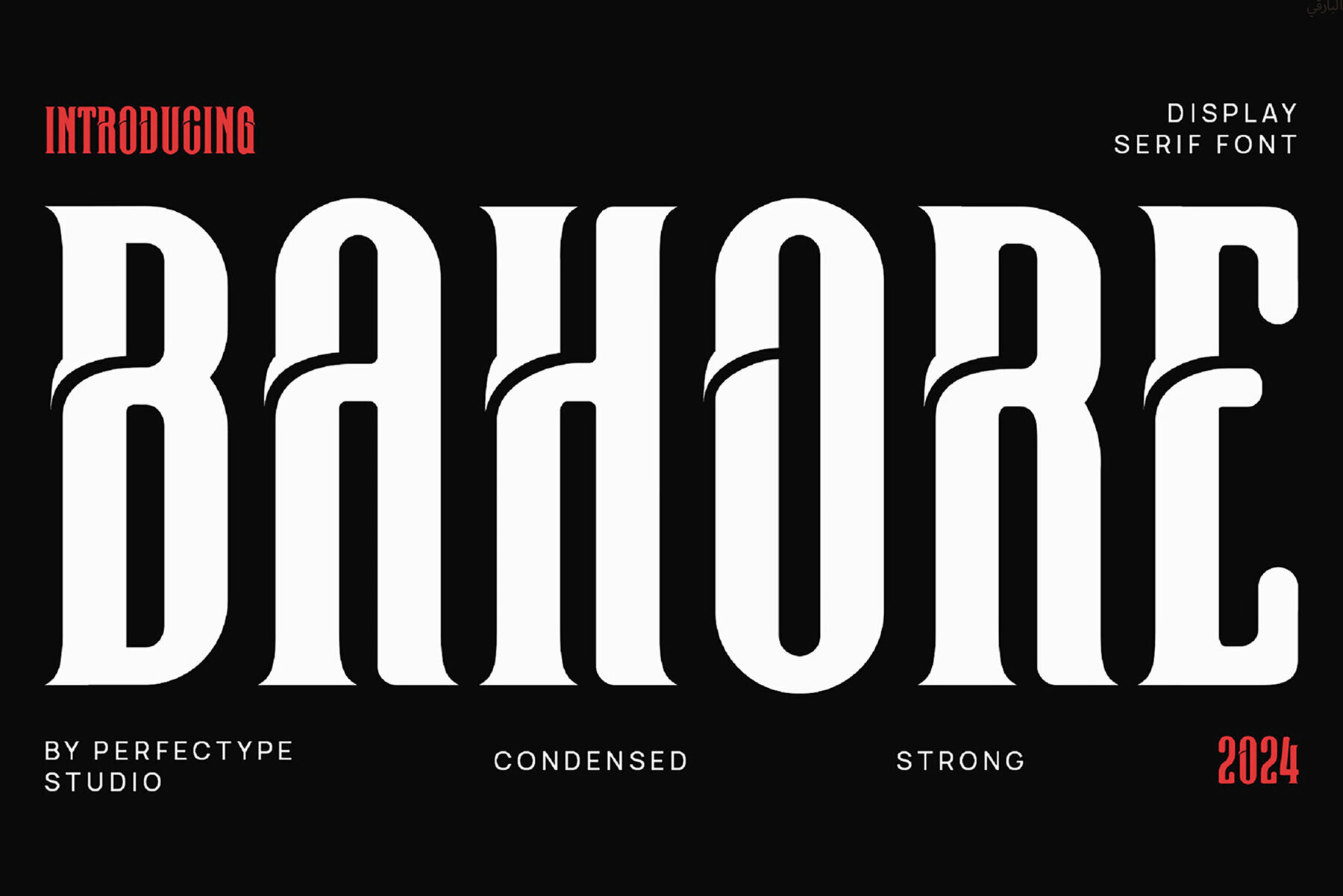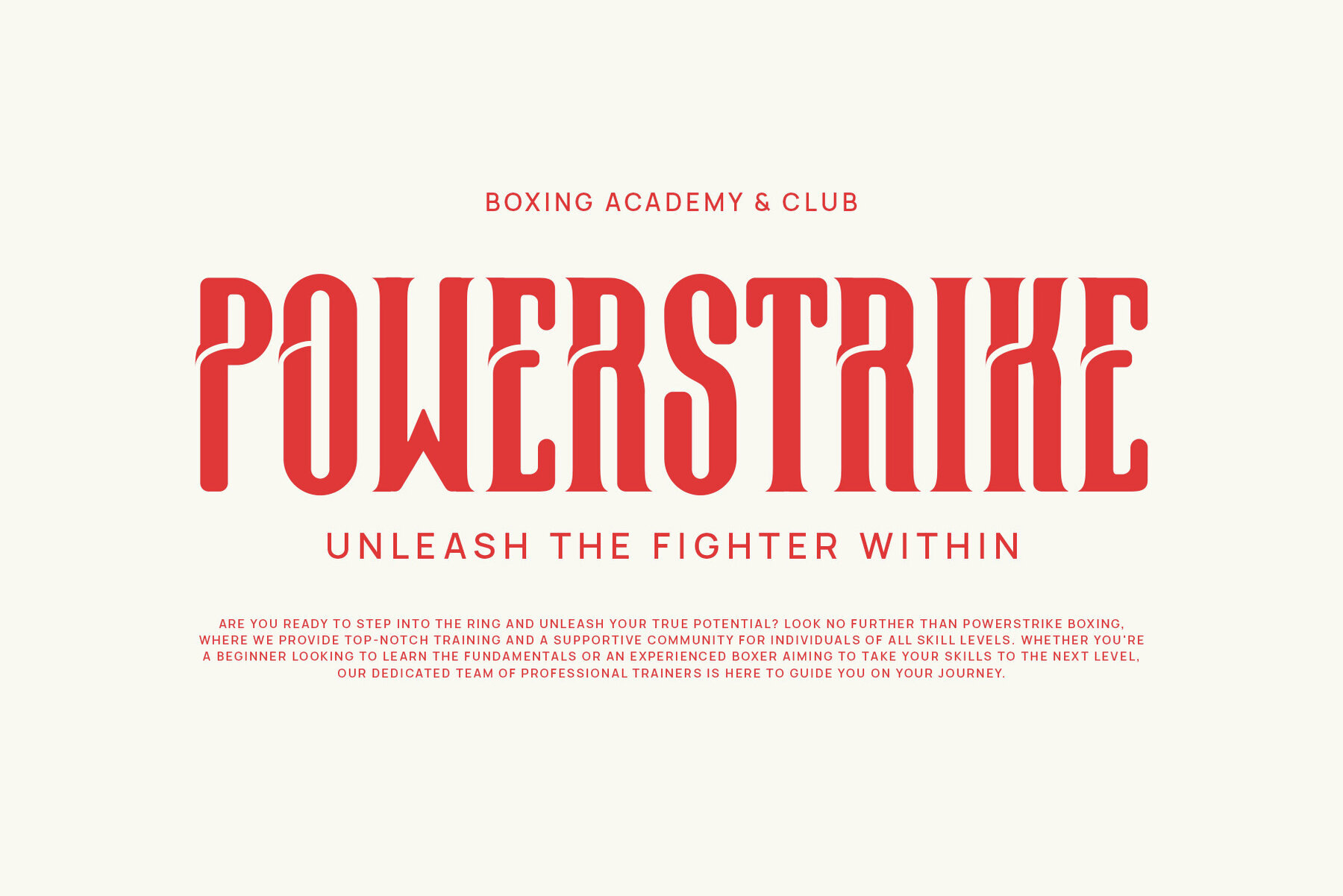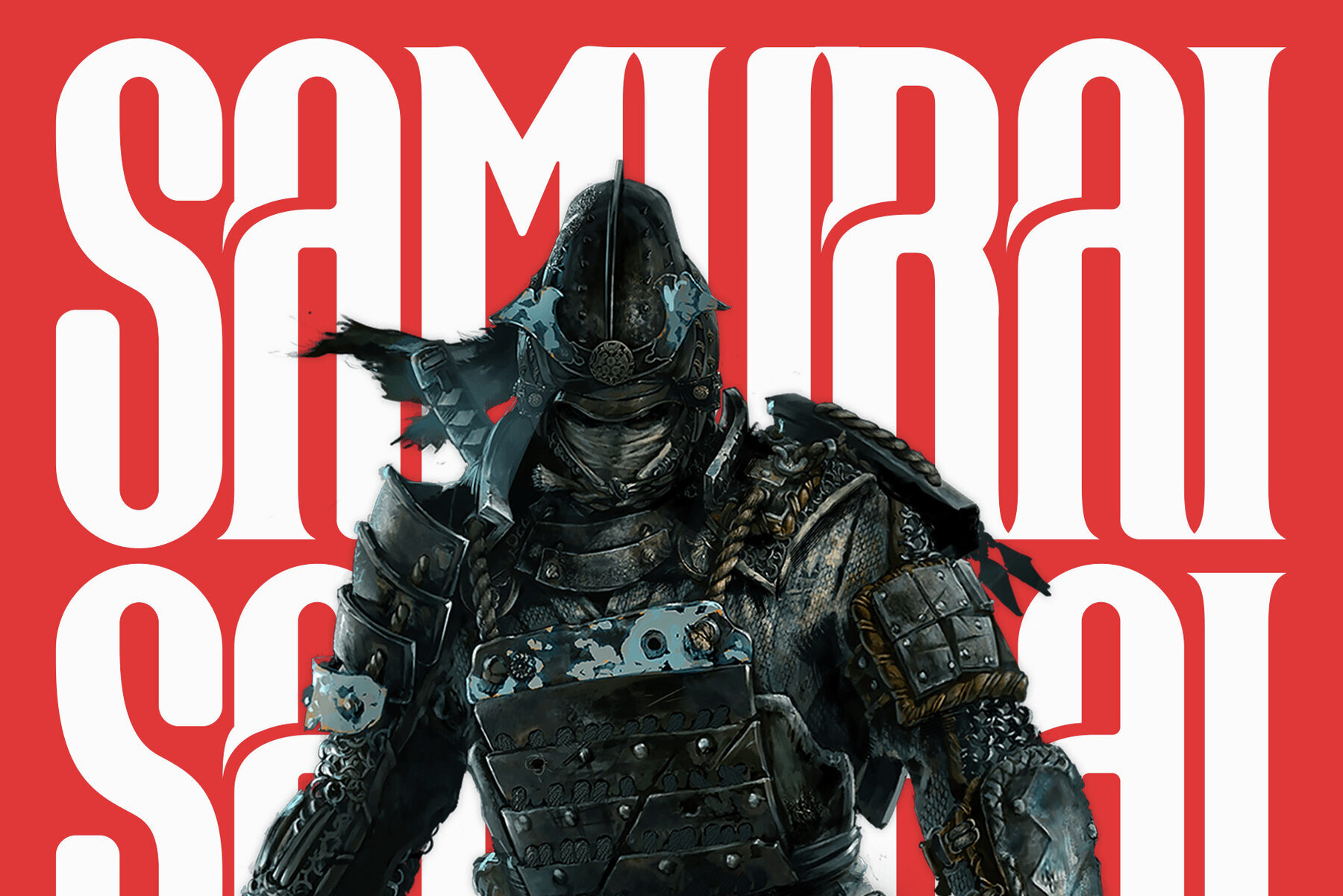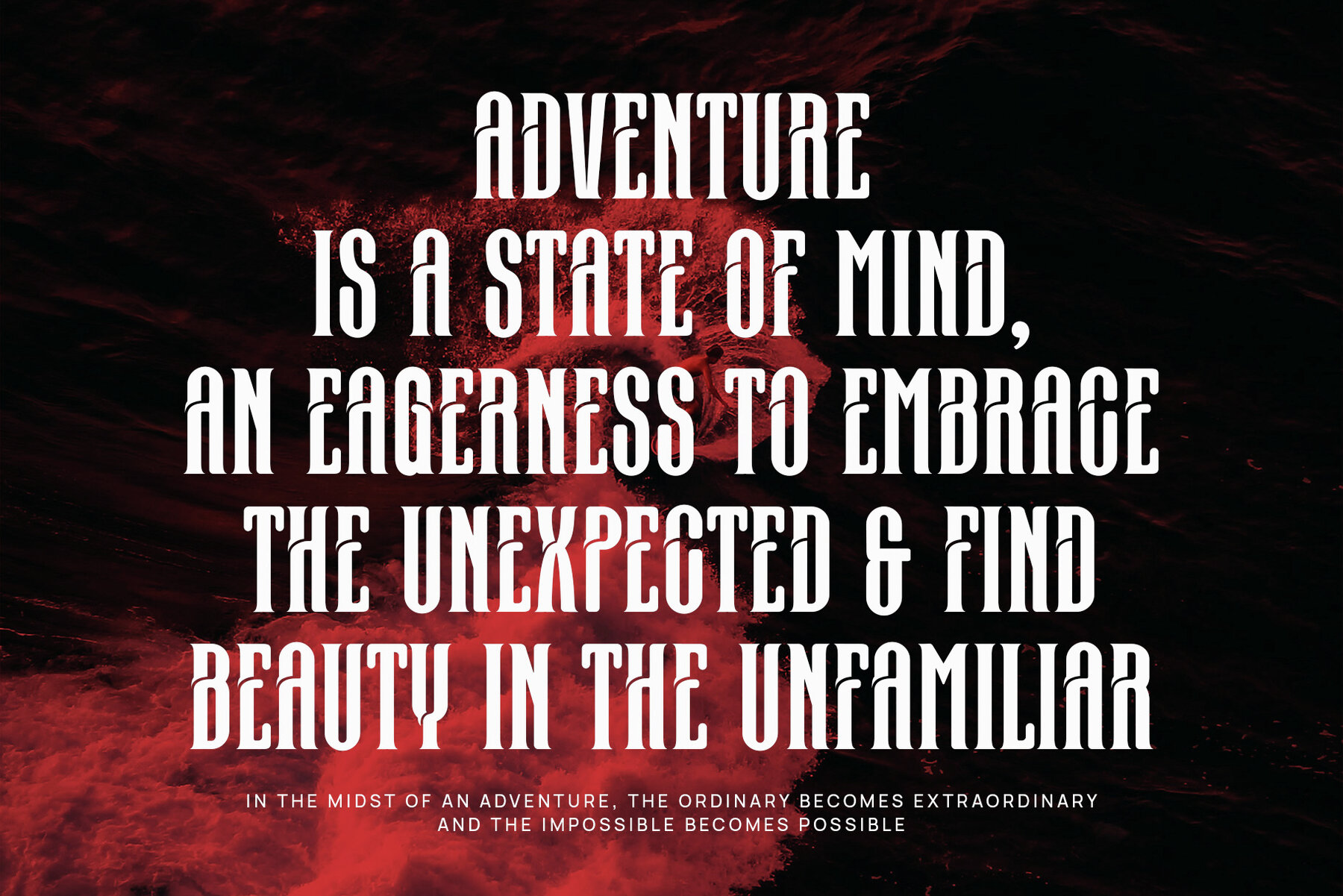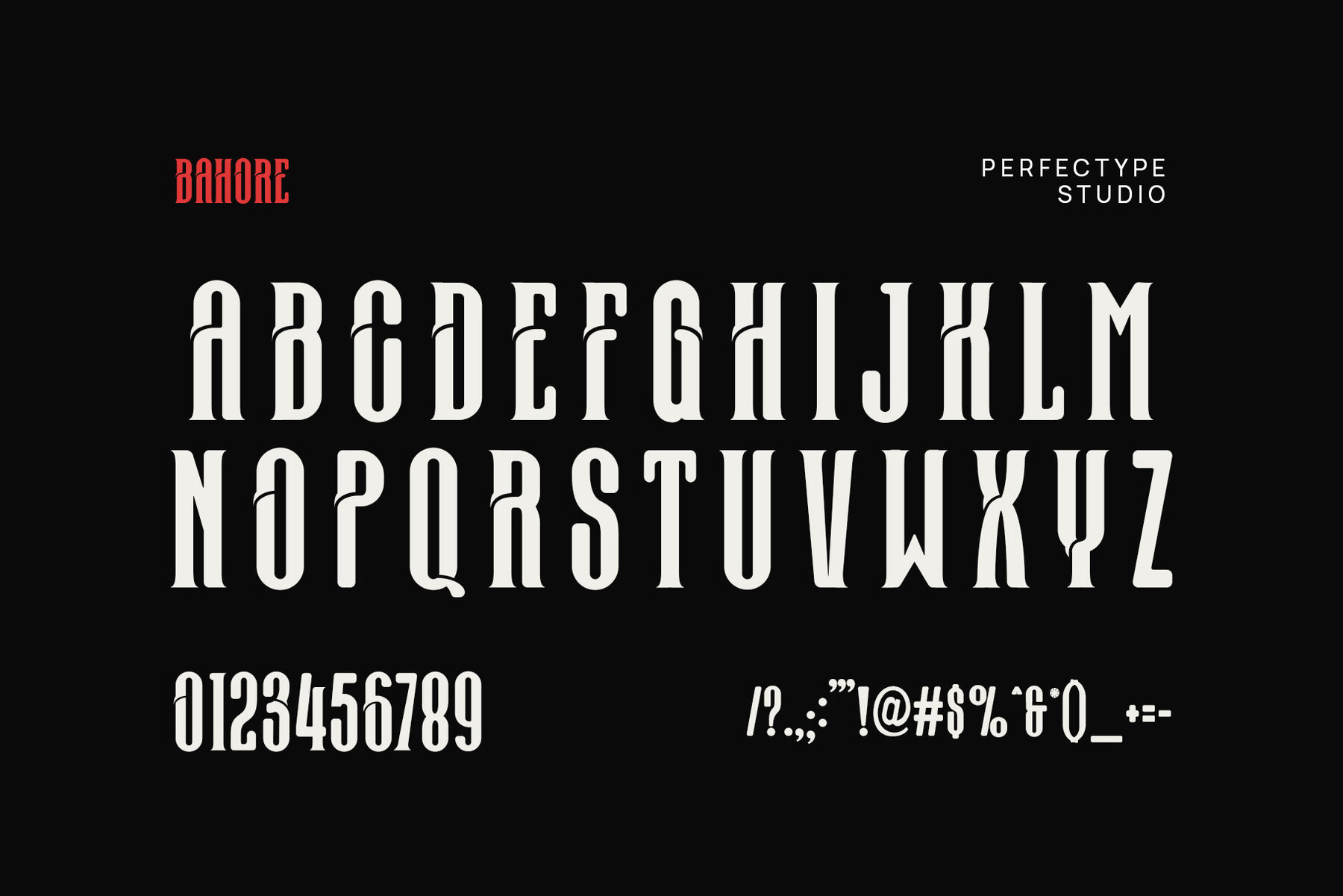
Bahore Font
Bahore
Bahore Unique Display Font is a vintage-inspired serif typeface, blending modern sophistication with bold, tattoo-style elements. Its design features a unique combination of rounded sans serif curves and sharp corners, accented by artistic cuts in the letterforms. This distinctive appearance makes Bahore stand out in any design, offering a creative and edgy aesthetic that's ideal for a variety of applications.
Perfect for logo design, branding, and tattoos, Bahore exudes personality and flair, making it an excellent choice for creating standout visual identities. Its bold and professional look suits luxury brands, advertisements, and product packaging. The font's vintage charm enhances magazines, books, posters, and layouts, lending printed materials an artistic, timeless quality.
Bahore's tattoo-inspired details are particularly suited for tattoo designs, allowing for bold, intricate lettering in body art, promotional materials, or merchandise. Its versatility extends to digital platforms like websites, social media graphics, and e-commerce stores, adding a unique touch to your online presence. From book covers to advertisements, Bahore offers the perfect balance of vintage style and modern design, essential for making a bold statement in creative projects.